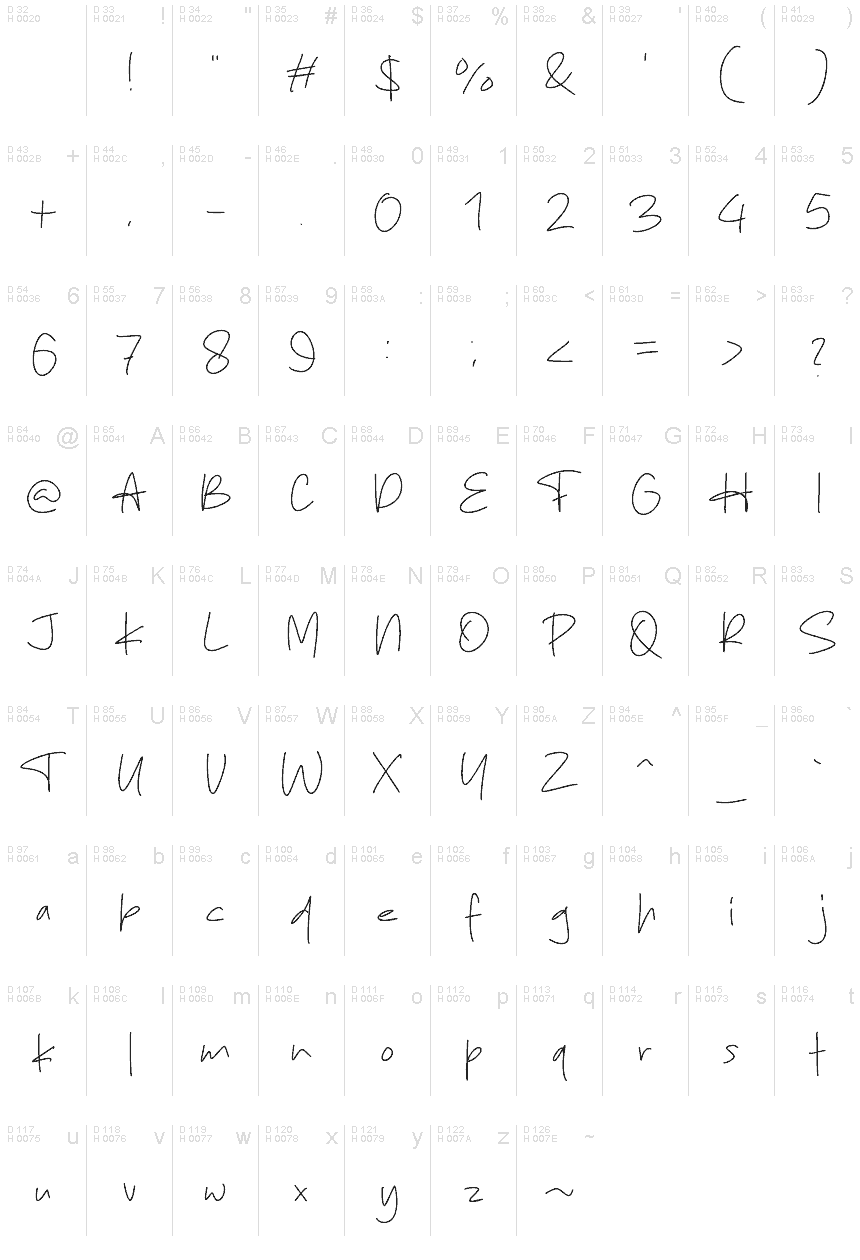
Micky Amster
Micky Amster font is a charming design by MJType that presents a marvelous free handwritten font perfect for both casual and elegant projects. Inspired by the beauty of signature styles, it has been recreated with lightness and all the distinctive features that make signatures gorgeous. However, rather than one with personal implications, this is suitable for absolutely everyone!
Ideal for those in marketing doing visual work or magazines creating a piece on an international level, Micky Amster would do wonders. Use it for quotes posters, invitation designs (birthday celebrations or wedding ceremonies), magazine titles or covers, attractive brochure covers, logo designs, packaging labels among others.